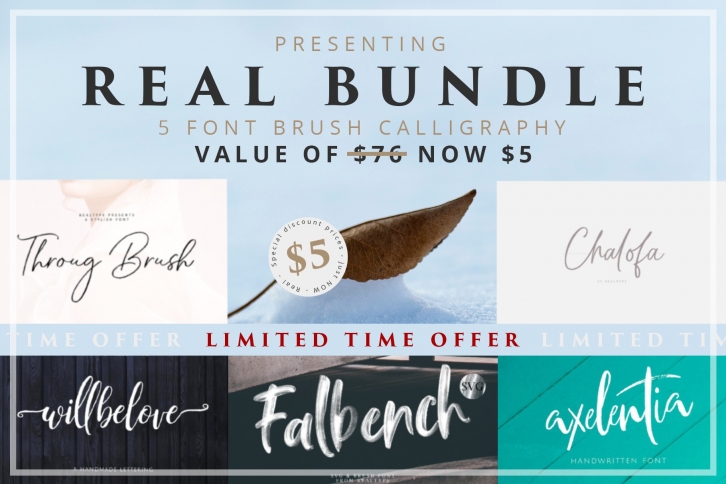
Real Bundle is a trendy and unique font with an authentic style. It was designed by realtype and it's a great choice for creative people who need such a font. It was released on October 16, 2019 and the file size is 2.32 MB. Real Bundle will add an organic vibe to any design idea!